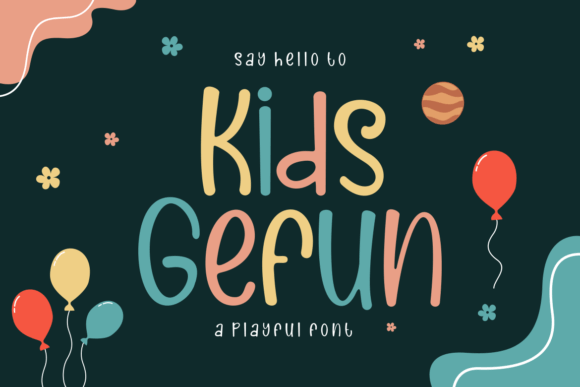
Blast off into a universe of limitless creativity with Kids Gefun Font, a treasure trove of vibrant and playful characters designed to ignite your imagination. This display font is not just a collection of letters; it's a gateway to a world where words dance and stories come alive. Unleash your inner child and let your designs soar to new heights with Kids Gefun.
With its bold and authentic strokes, Kids Gefun captivates the eye, leaving an unforgettable impression. Its modern, playful style is perfect for capturing the essence of childhood, whether you're creating logos, designing t-shirts, or crafting captivating invitations. Let your creativity run wild as you explore the endless possibilities that await you within the realm of Kids Gefun.
Step into a realm of boundless expression, where your imagination knows no bounds. Create logos that resonate with a youthful spirit, evoking a sense of wonder and excitement. Design t-shirts that tell stories, capturing the magic of childhood dreams. Craft invitations that transport your guests to a world of pure joy and enchantment.
Kids Gefun is a font that speaks to the heart, stirring emotions and sparking smiles. Its playful charm is infectious, spreading happiness wherever it goes. Embrace the power of positivity and let your designs radiate with the sheer joy of being a kid.
With its extraordinary versatility, Kids Gefun transcends the boundaries of ordinary fonts. It shines in a myriad of contexts, from playful branding to enchanting invitations. Its bold strokes demand attention, making your designs impossible to ignore.
Welcome to the world of Kids Gefun, where imagination reigns supreme and creativity knows no limits. Let this font ignite the spark of inspiration within you, propelling your designs to new heights of brilliance. Join the countless others who have discovered the magic of Kids Gefun and transformed their creative visions into stunning realities.